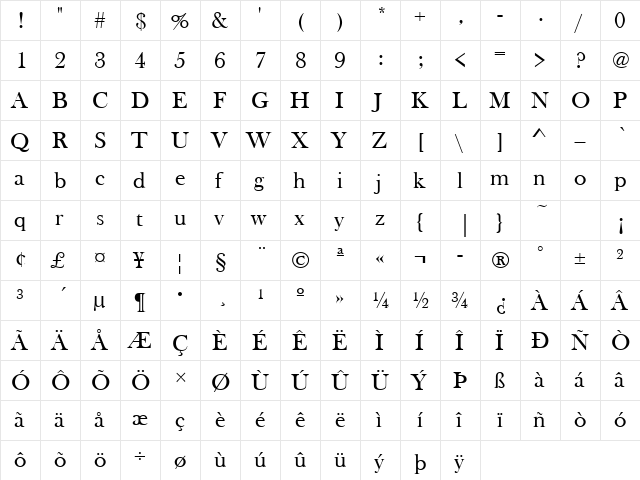
Great Gig 1 Regular
Design Context for Great Gig 1 Typeface
Great Gig 1 offers clean, dependable letterforms without strong stylistic allegiance, making it a practical choice for designers who need flexibility.